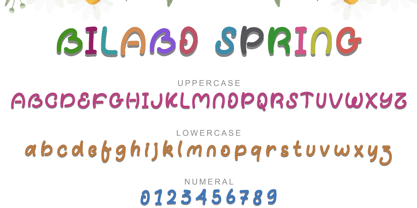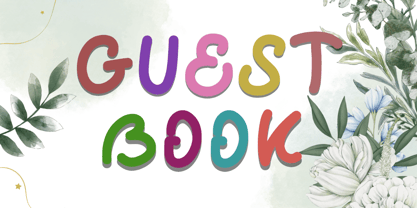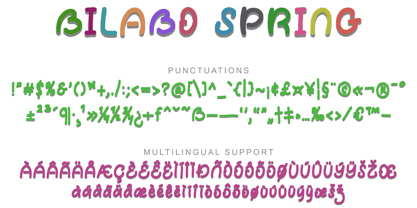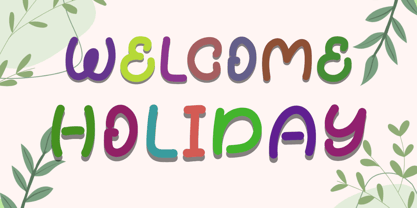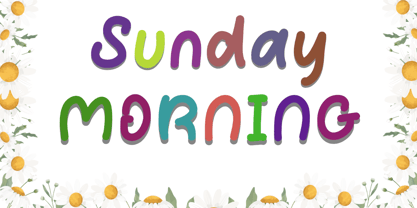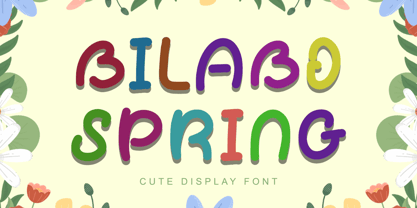
Bilabo Spring
by Yoga Letter
The Bilabo Spring Font Family was designed by Isroni Yoga Prasetya and published by Yoga Letter. Bilabo Spring contains 1 styles.
"Bilabo Spring" is a unique and cute display font. This font is equipped with uppercase, lowercase, numerals, punctuations and multilingual support. Very suitable for use for spring, summer, holiday, banner, poster, print, easter, animation, logo, sticker, branding, svg, kdp, procreate and others.